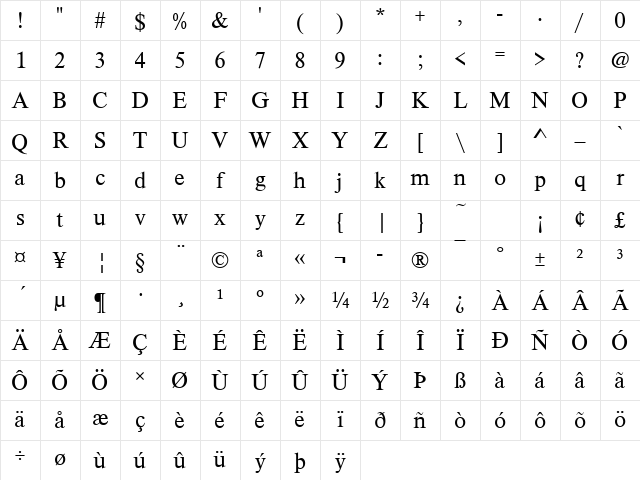
TimelessTLig Regular
TimelessTLig Family
TimelessTLig Regular
Design Context for TimelessTLig
TimelessTLig is a composed and adaptable typeface that performs quietly and consistently across a wide range of design contexts.